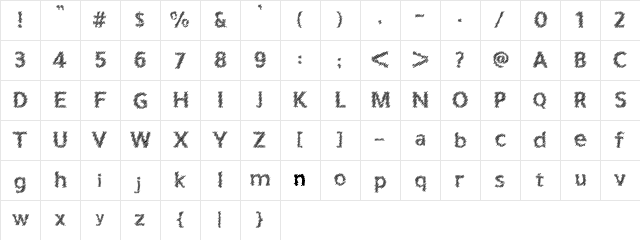
Corret Regular
| Designer | wayang venture |
Design Context for Corret Typeface
Corret is a composed and adaptable typeface that performs quietly and consistently across a wide range of design contexts.